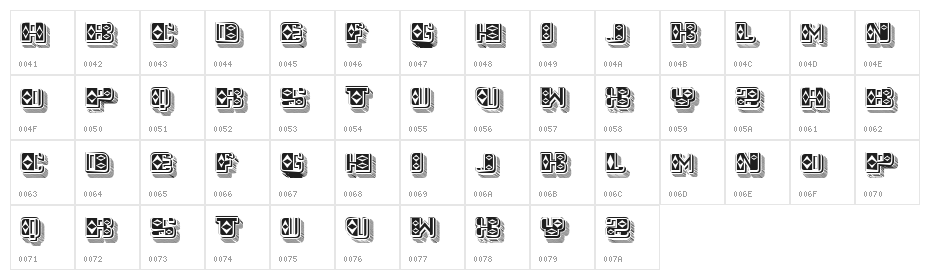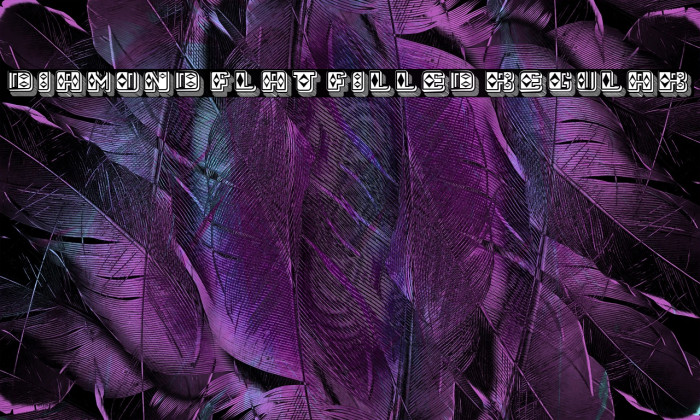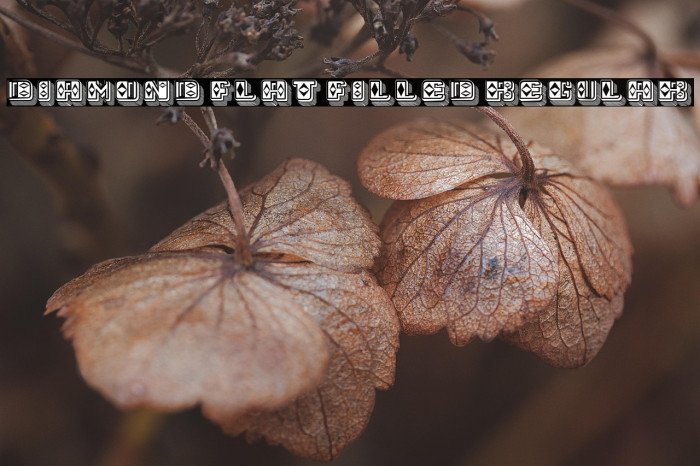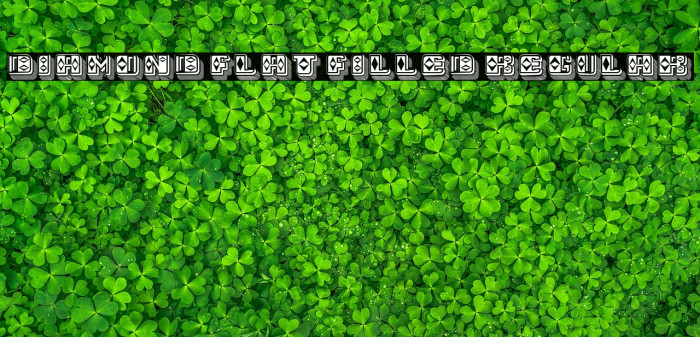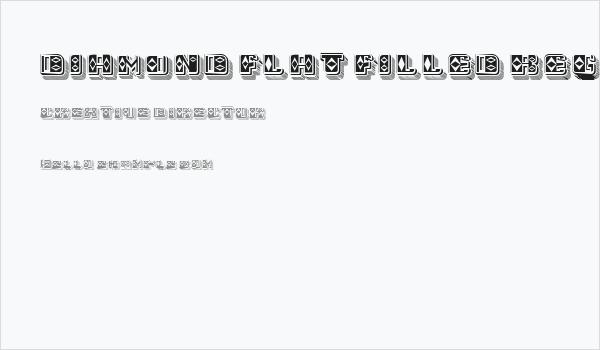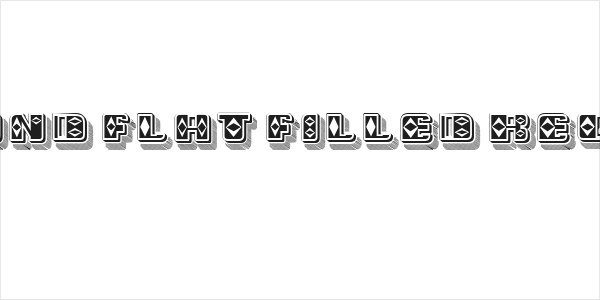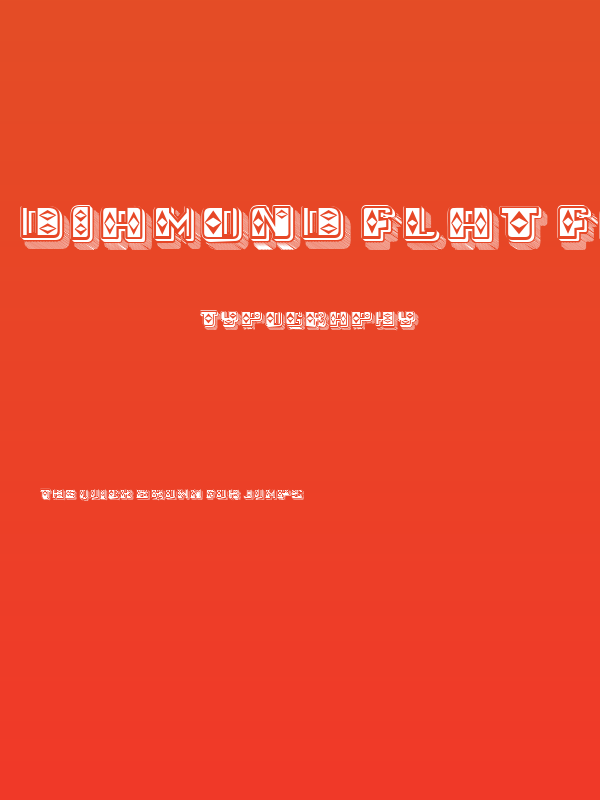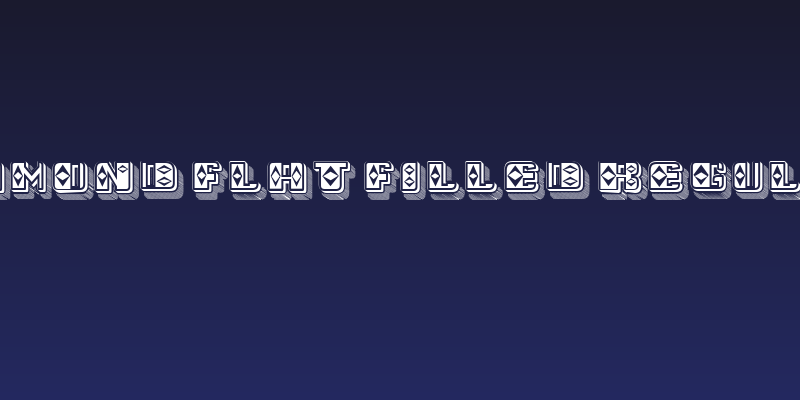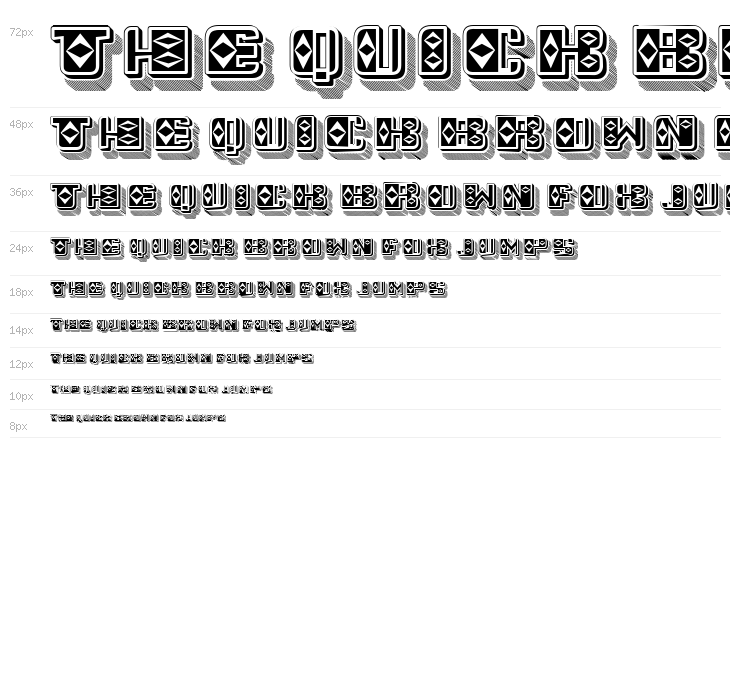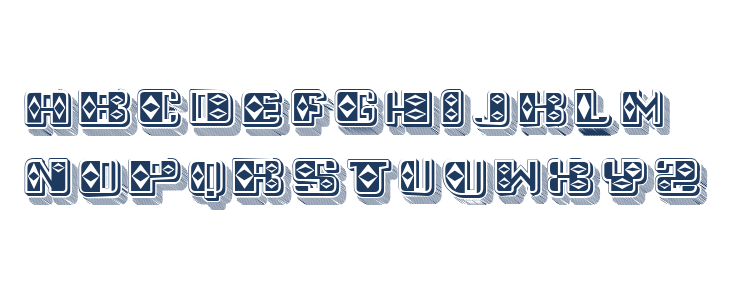
Diamond Flat Filled Regular Font
Diamond Flat Filled Regular Description
This font features a bold, geometric design with a three-dimensional effect, giving each character a distinct and eye-catching appearance. The letters are filled with intricate patterns and shapes, including diamonds and lines, which add depth and complexity to the overall look. The shadowing effect enhances the 3D illusion, making the characters appear as though they are popping off the page. The style is highly decorative, making it suitable for projects that require a strong visual impact. The uppercase and lowercase letters maintain consistency in style, while the numbers and special characters are equally detailed and ornate.
| Proposed Projects | Ideal for poster designs, album covers, branding projects, and any creative work that demands a striking visual element. |